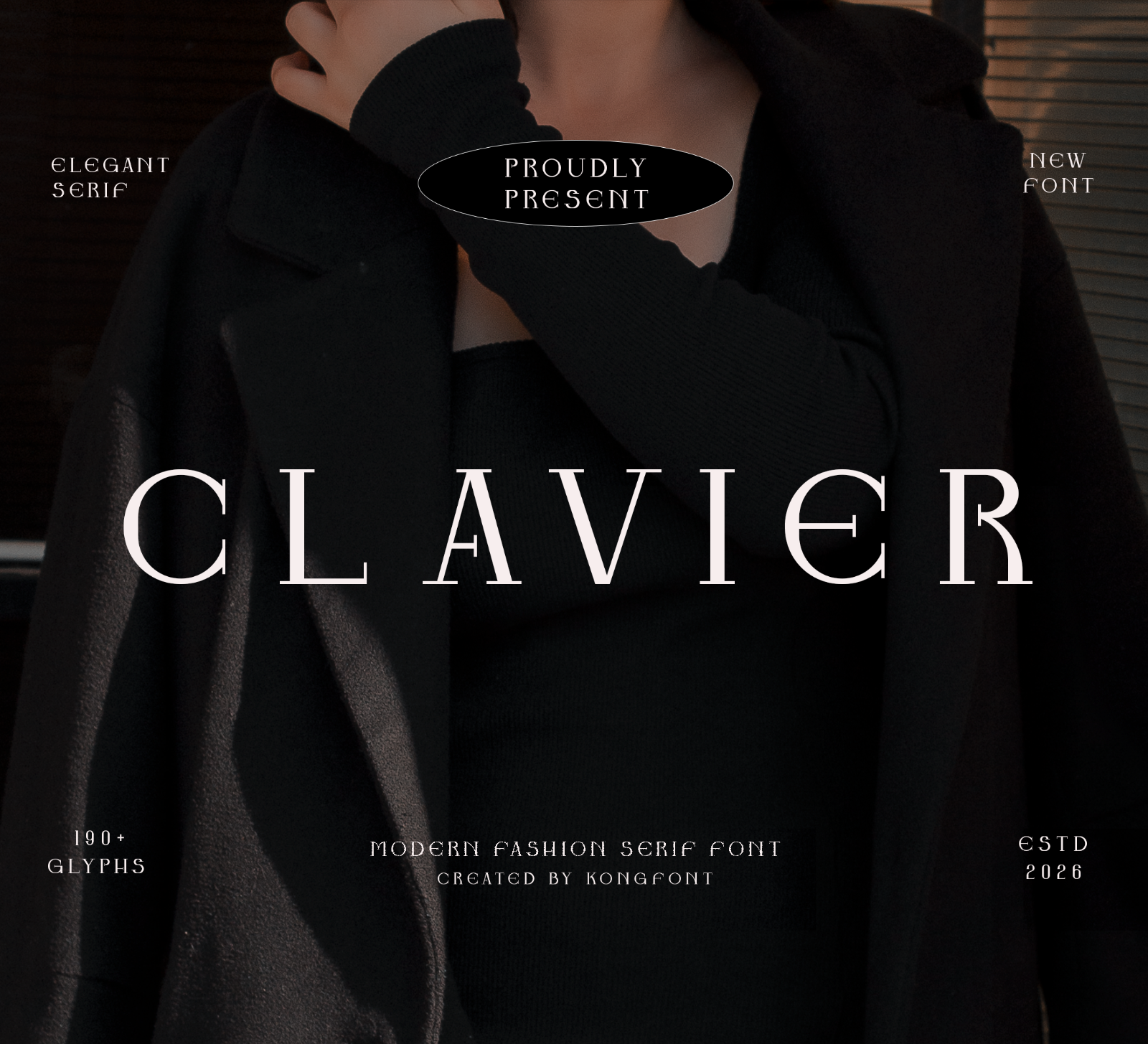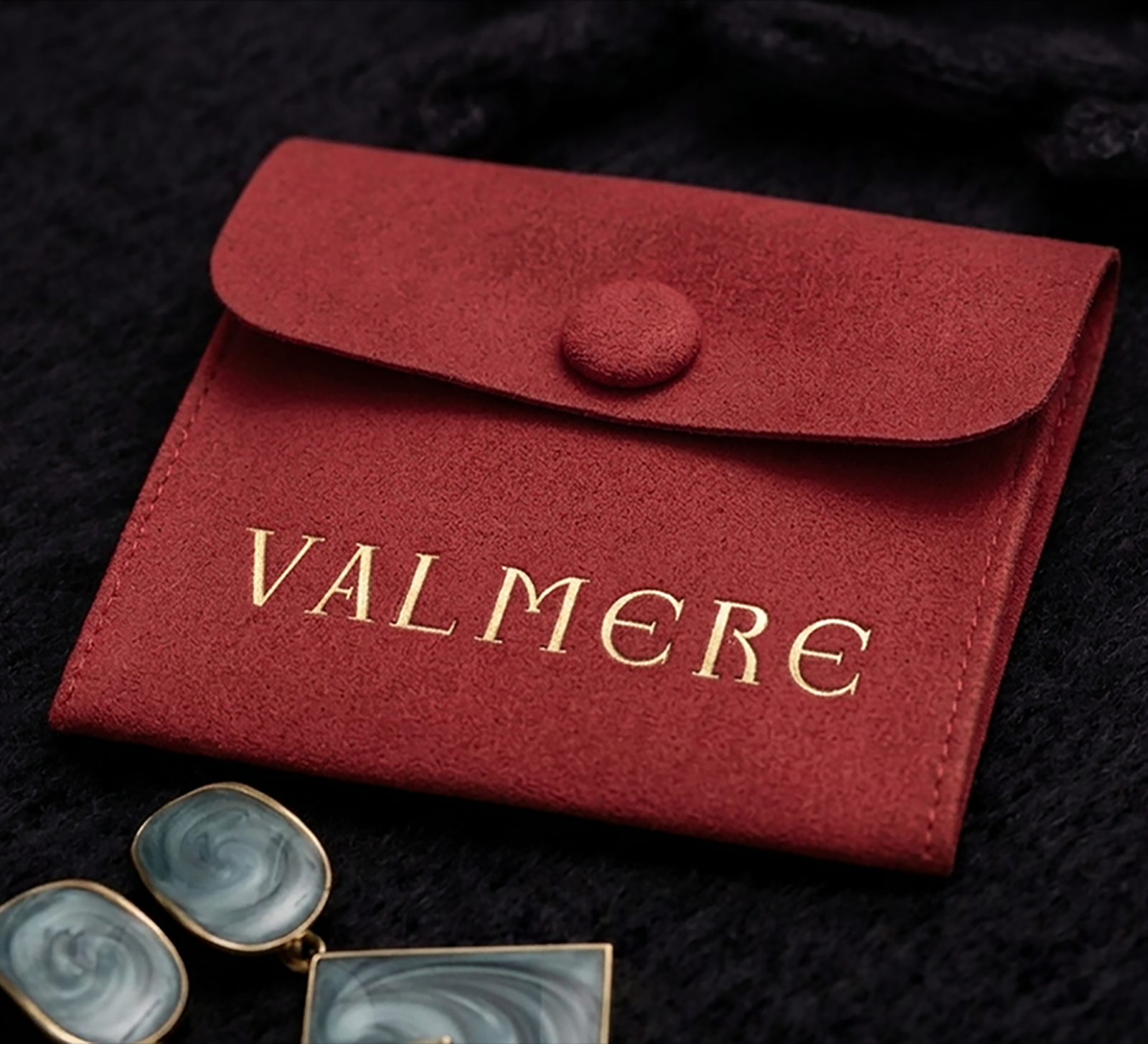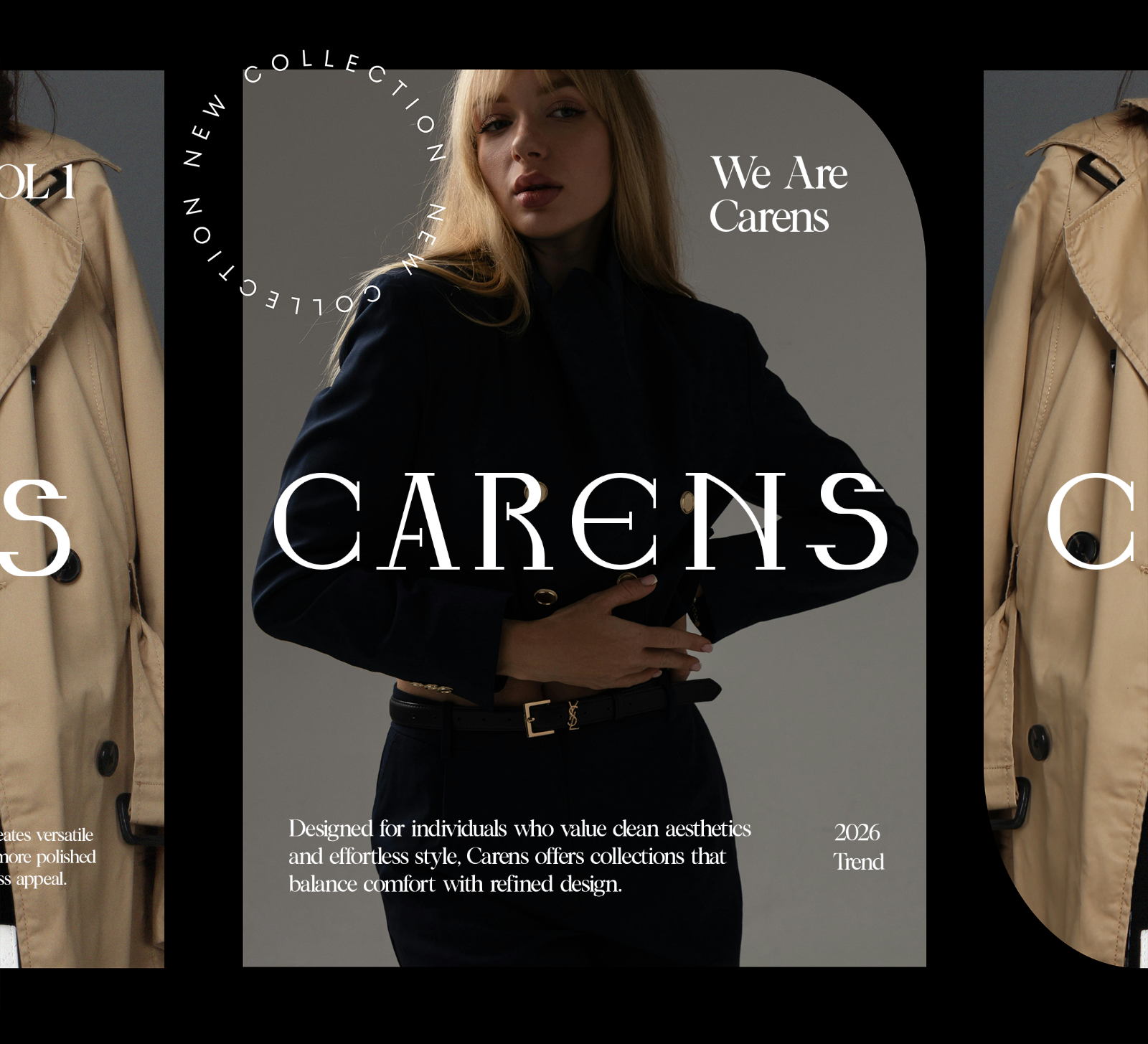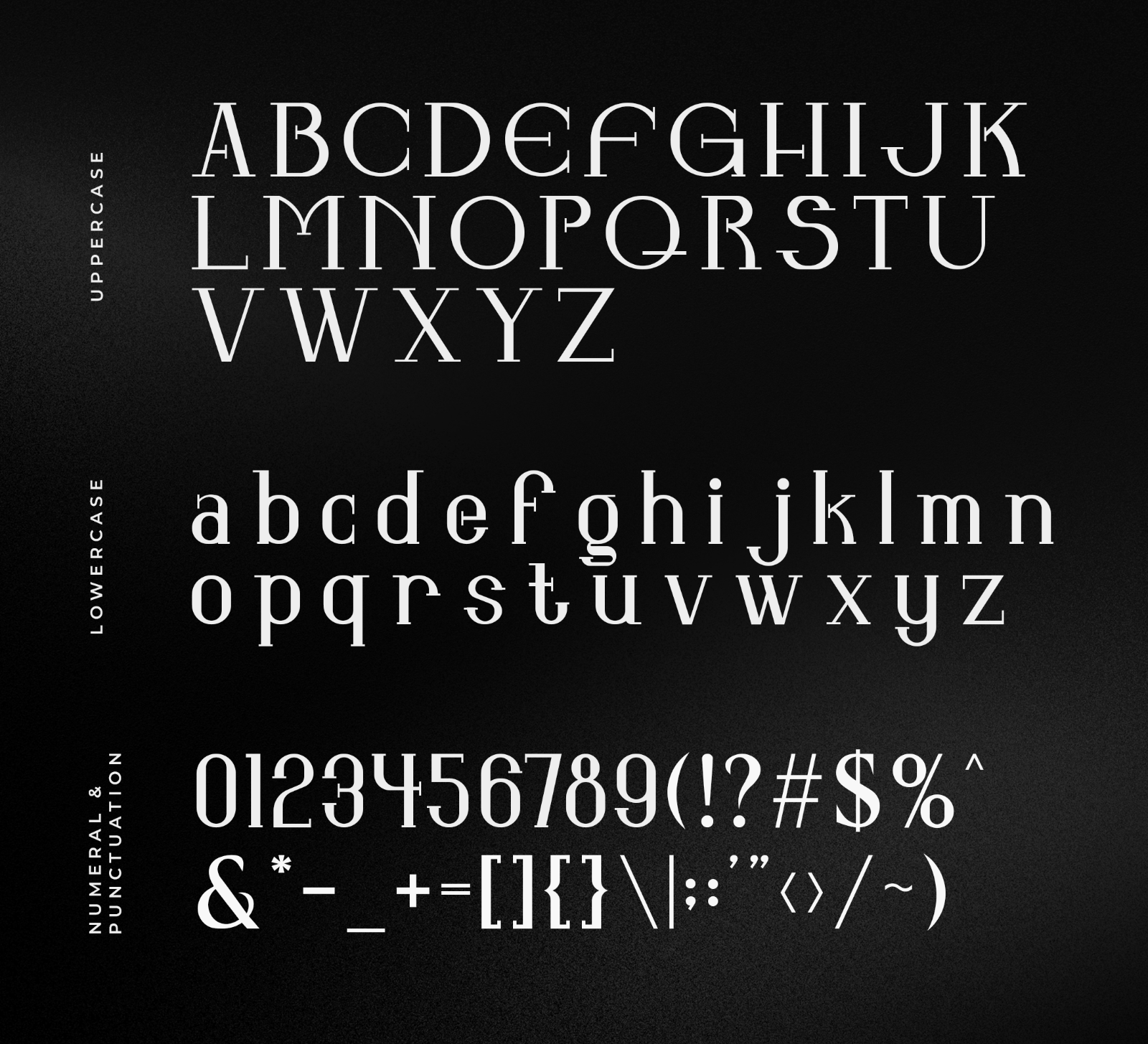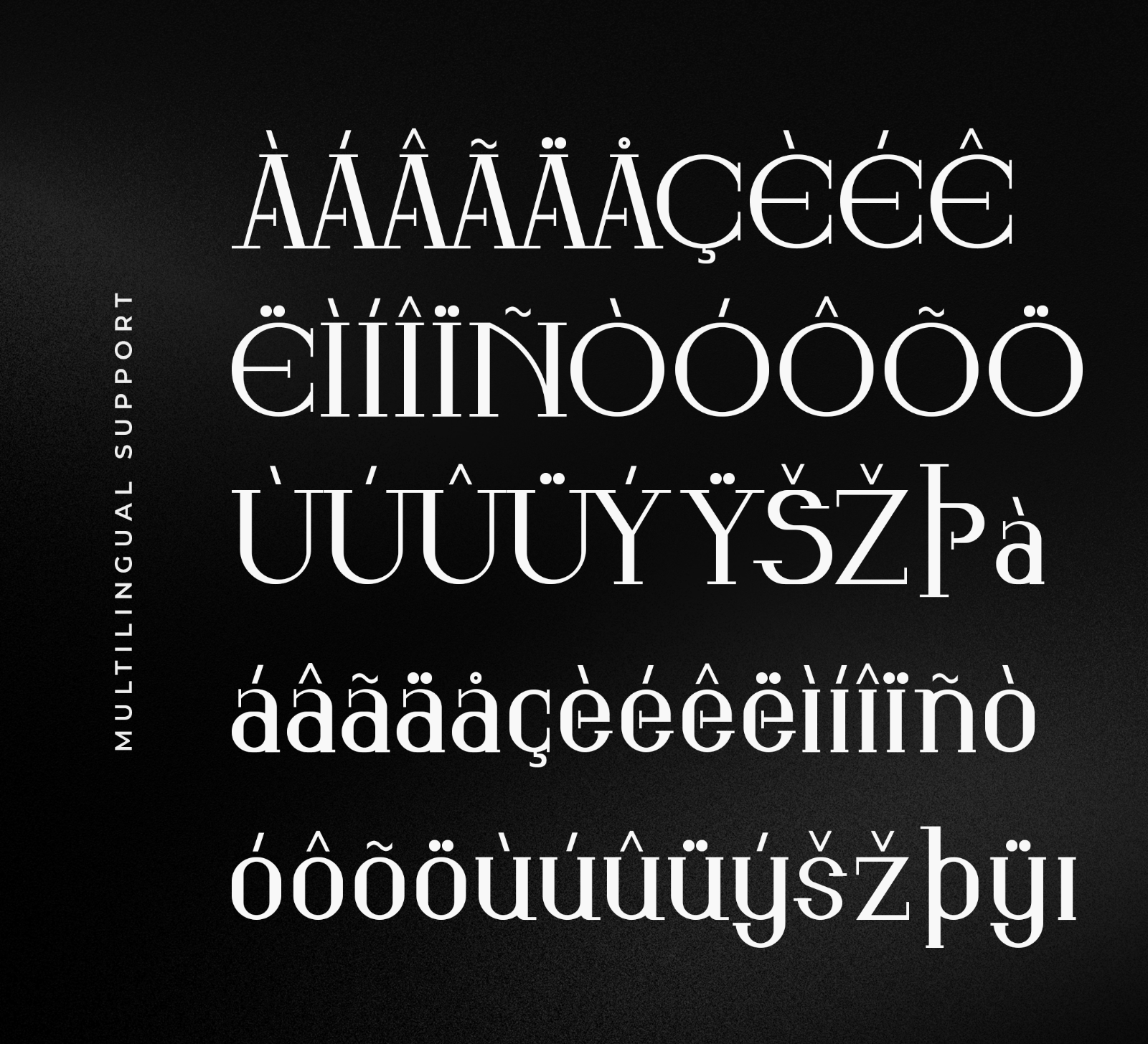
MarketplaceFontsClavier – Modern Bold Serif Font
Clavier is a modern serif font with bold letterforms, smooth curves, and a clean contemporary style. Its strong and elegant appearance makes it perfect for designs that need a stylish, professional, and eye-catching look.
• Branding
• Logos
• Business cards
• Blog headers
• Quotes
• Editorial titles
• Packaging
• Creative typography
Compatible with Windows and Mac, Clavier is a great choice for modern branding and display projects that need a bold, refined, and memorable serif style.